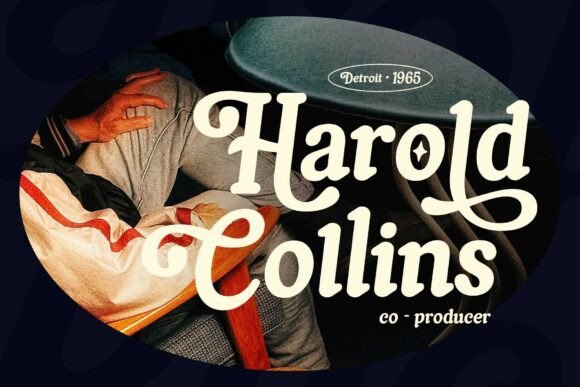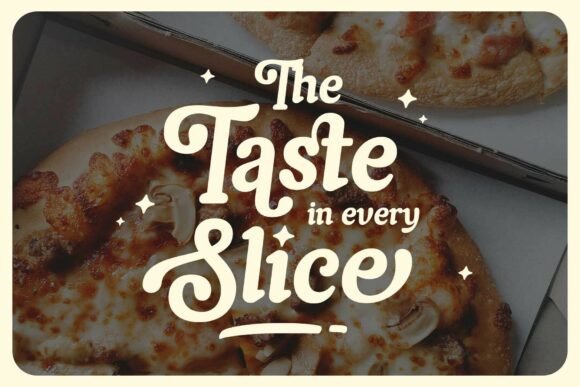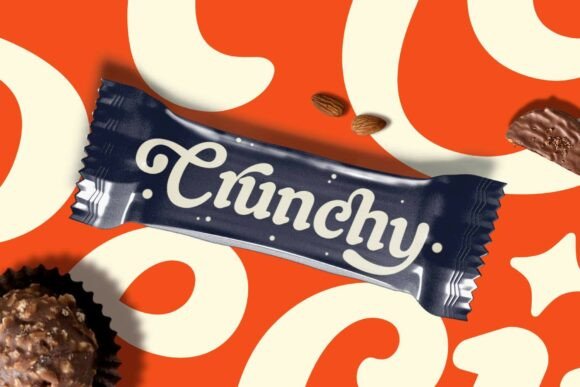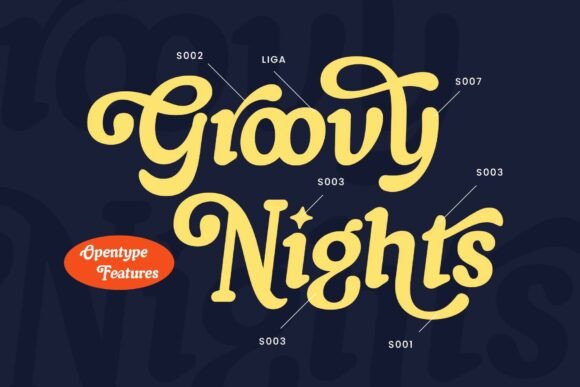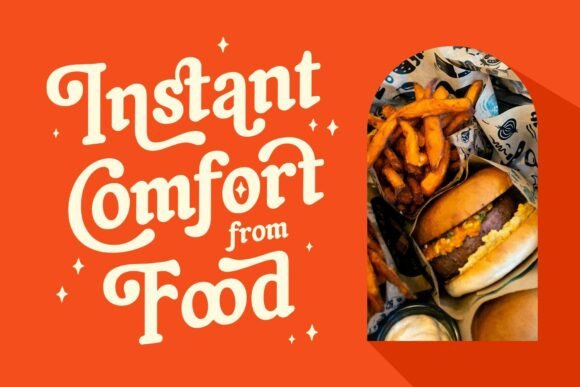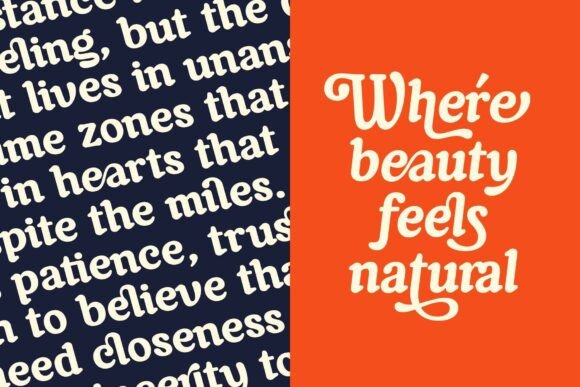
Introducing Billyand Font: Elevate Your Designs with a Refined Vintage Italic Typeface
In the world of typography, a well-crafted font can elevate your design from ordinary to extraordinary. Say hello to Billyand, a sophisticated vintage italic typeface that seamlessly blends classic italic lettering with bold character and decorative flair. This stunning font is designed to deliver a look that feels both elegant and confident, making it perfect for designers seeking to add a touch of luxury and sophistication to their projects.
The Essence of Billyand Font
The Billyand font boasts beautiful, sweeping swashes and a heavy-bottomed weight that feels grounded yet incredibly stylish. Its refined vintage aesthetic makes it an ideal solution for designers looking to recreate a “retro-chic” look for magazine covers, luxury packaging, or high-end cafe branding. The font’s unique character and decorative flair ensure that your designs stand out from the crowd, exuding a sense of elegance and refinement.
A Versatile Typeface for Diverse Design Applications
Designed for versatility, Billyand works beautifully across a wide range of design applications, including logos, signage, cards, labels, posters, motion graphics, branding, apparel, merchandise, and beyond. Its adaptability makes it an excellent choice for designers working on various projects, from vintage and sports branding to retro and adventure-themed designs. Whether you’re creating a minimalist look or a bold statement, Billyand font adapts effortlessly to different styles, ensuring a seamless integration into your design.
The Beauty of Italic Typography
The Billyand typeface features a “Beautiful Italic” nature that provides a rhythmic flow, leading the eye across the page with ease. This makes it a joy to use for titles and pull-quotes, adding a touch of elegance and sophistication to your designs. The font’s italic style creates a sense of movement and fluidity, drawing the reader’s attention and engaging them with your content.
A Rich Set of Alternates and Swashes
One of the standout features of the Billyand font is its rich set of alternates and swashes. This extensive range of options allows designers to experiment with different styles and variations, ensuring that their designs are always unique and captivating. The alternates and swashes add an extra layer of creativity to the font, enabling designers to tailor their typography to suit their specific design needs.
Perfect for Food & Beverage, Holiday, Urban, and More
Billyand font is particularly well-suited for designs related to food & beverage, holiday, urban, and other styles. Its vintage flair and elegant aesthetic make it an excellent choice for branding and packaging in the food and beverage industry, while its bold character and decorative swashes are perfect for creating eye-catching holiday-themed designs. The font’s versatility also makes it an excellent choice for urban and minimalist designs, where its clean lines and elegant aesthetic can add a touch of sophistication.
Why Choose Billyand Font?
So, why choose Billyand font for your design projects? Here are just a few reasons:
- Elegant and Confident Aesthetic: Billyand font delivers a look that feels both elegant and confident, making it perfect for luxury branding and high-end designs.
- Versatility: The font works beautifully across a wide range of design applications, from logos and signage to apparel and merchandise.
- Rich Set of Alternates and Swashes: The font’s extensive range of alternates and swashes provides designers with endless creative possibilities.
- Easy to Use: Billyand font features a “Beautiful Italic” nature that provides a rhythmic flow, making it easy to use for titles and pull-quotes.
In conclusion, Billyand font is a refined vintage italic typeface that offers a unique blend of elegance, confidence, and versatility. Its beautiful swashes, heavy-bottomed weight, and rich set of alternates and swashes make it an excellent choice for designers seeking to elevate their designs and add a touch of luxury and sophistication. Whether you’re working on a magazine cover, luxury packaging, or high-end cafe branding, Billyand font is the perfect solution for your typography needs.